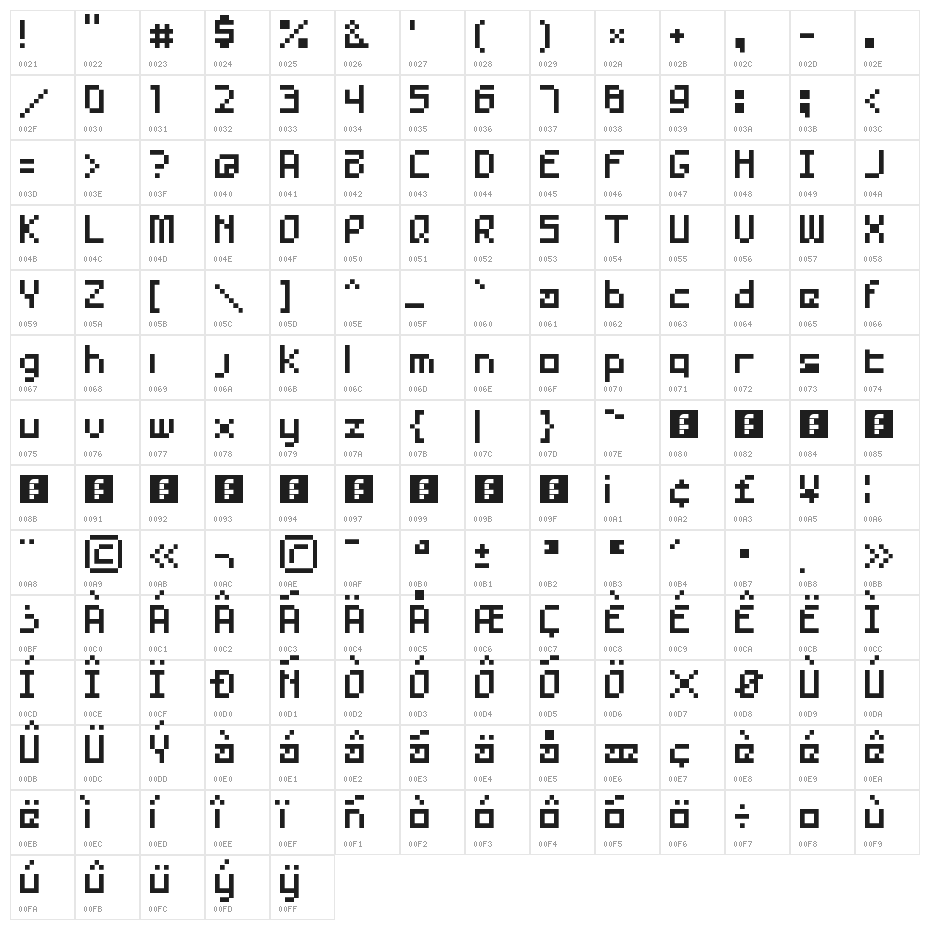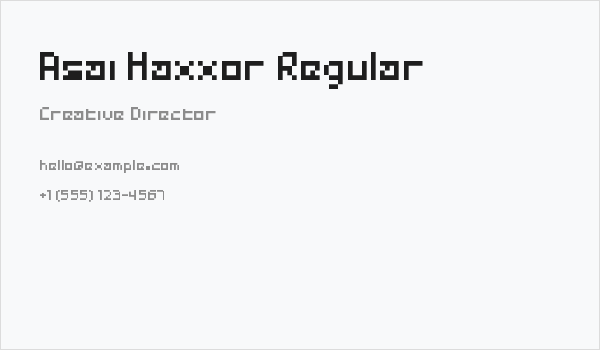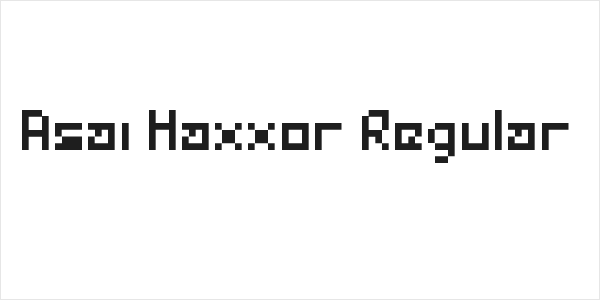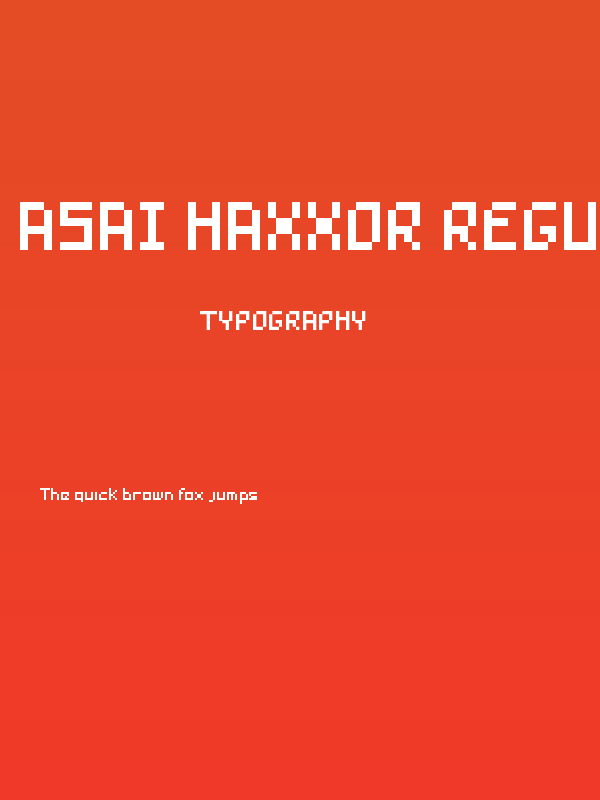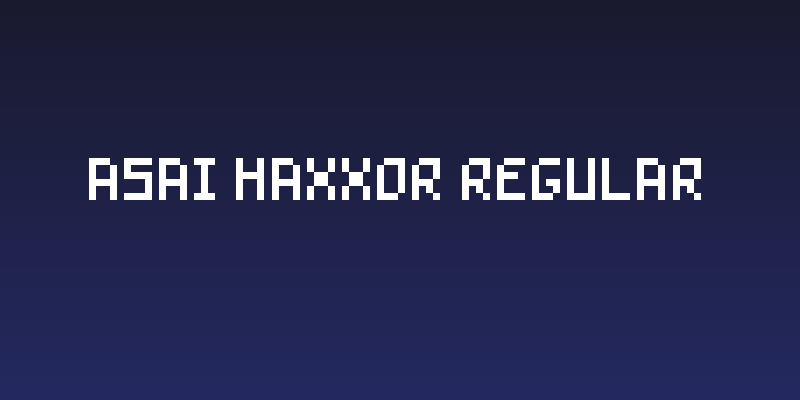
Asai Haxxor Regular Font
Asai Haxxor Regular Description
This font features a pixelated, blocky design reminiscent of early digital and video game typography. Each character is constructed with a uniform grid-like structure, giving it a distinctly retro and technological appearance. The uppercase and lowercase letters maintain a consistent height, enhancing the font's monospaced characteristics. The numbers and special characters follow the same pixelated style, ensuring visual harmony across all glyphs. This font is ideal for projects that aim to evoke nostalgia or a digital, tech-focused aesthetic.
| Overall Style | Retro, Digital |
| Use Case | Logos, Headlines, Digital interfaces |
| Proposed Projects | Ideal for video game design, tech-themed posters, digital art projects, and retro-style branding. |